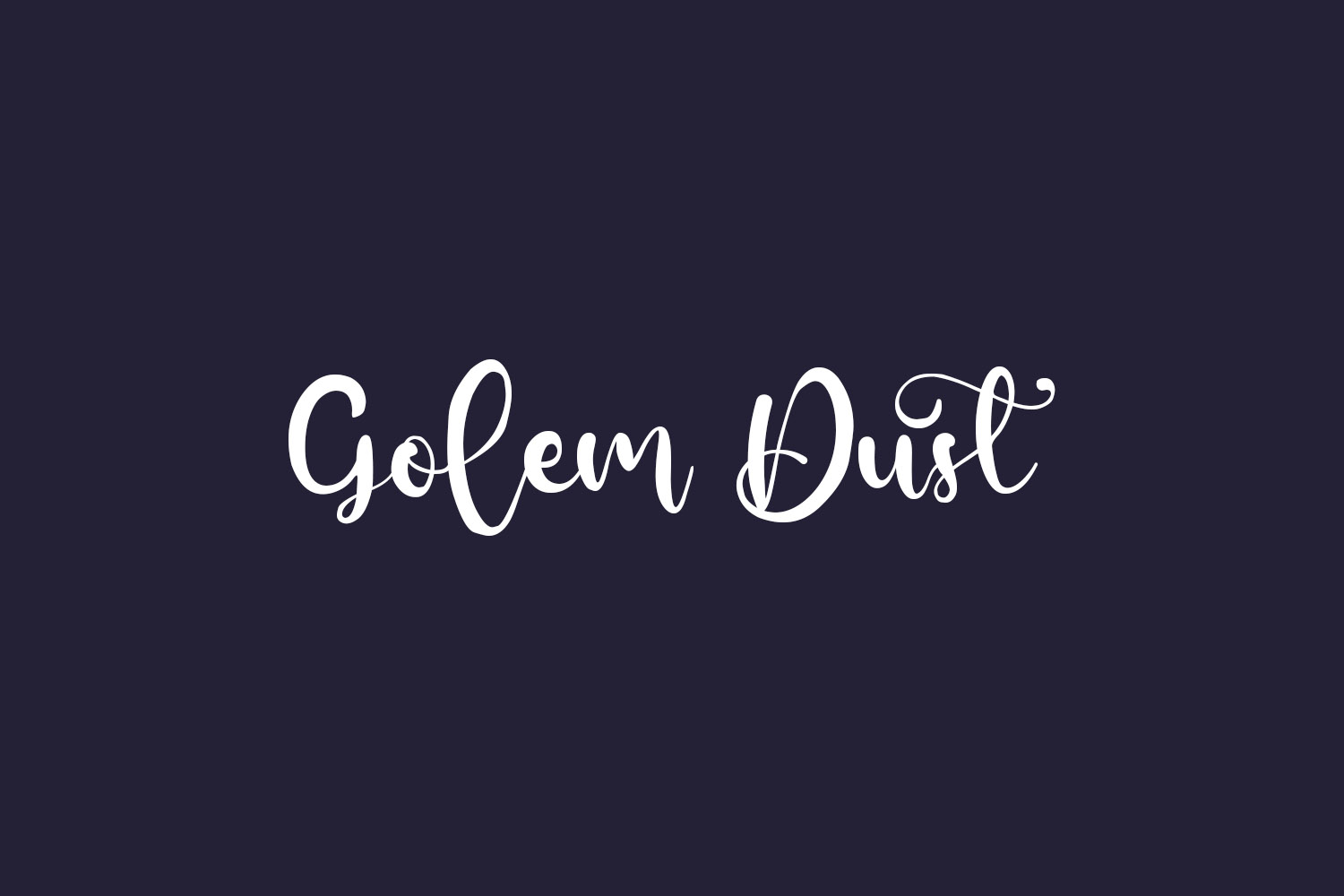
Golem Dust Free Font is a modern and playful handwritten script font. It’s great for crafters and designers. It is perfect for any branding project such as logos, t-shirt printing, creative products, or pretty much anything that could benefit from a geometric, fancy vibe. Golem Dust Free Font was designed by Kong Font and is free for personal use only. Please purchase the full version for commercial use.